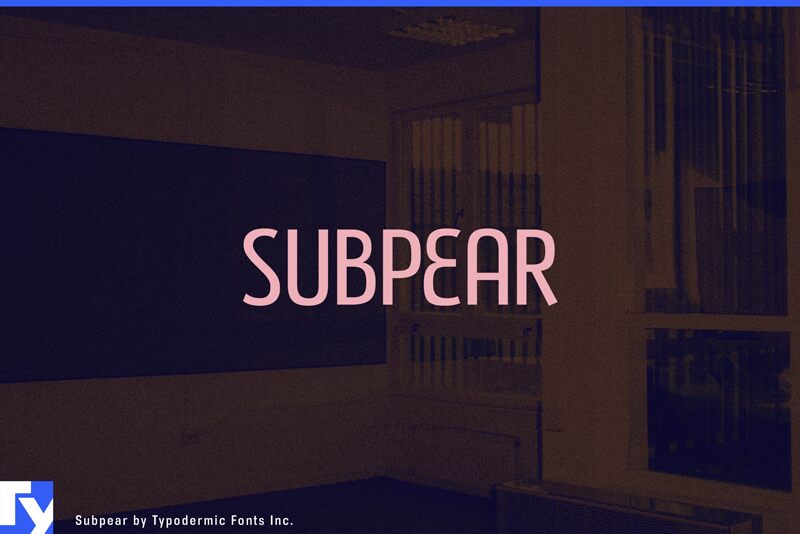
Subpear by Ray Larabie of Typodermic Fonts Inc. is a free high-contrast serif with tall, slender letters and broad, sweeping curves. Fine hairlines meet fuller strokes, and the rounded forms have a slightly soft, calligraphic finish.
Its fashion-editorial air suits magazine covers and beauty branding. It also has the refinement needed for perfume packaging and formal event invitations. On a cosmetic label, the dramatic curves can become part of the emblem rather than serving as neutral text.
Subpear is a technical font.